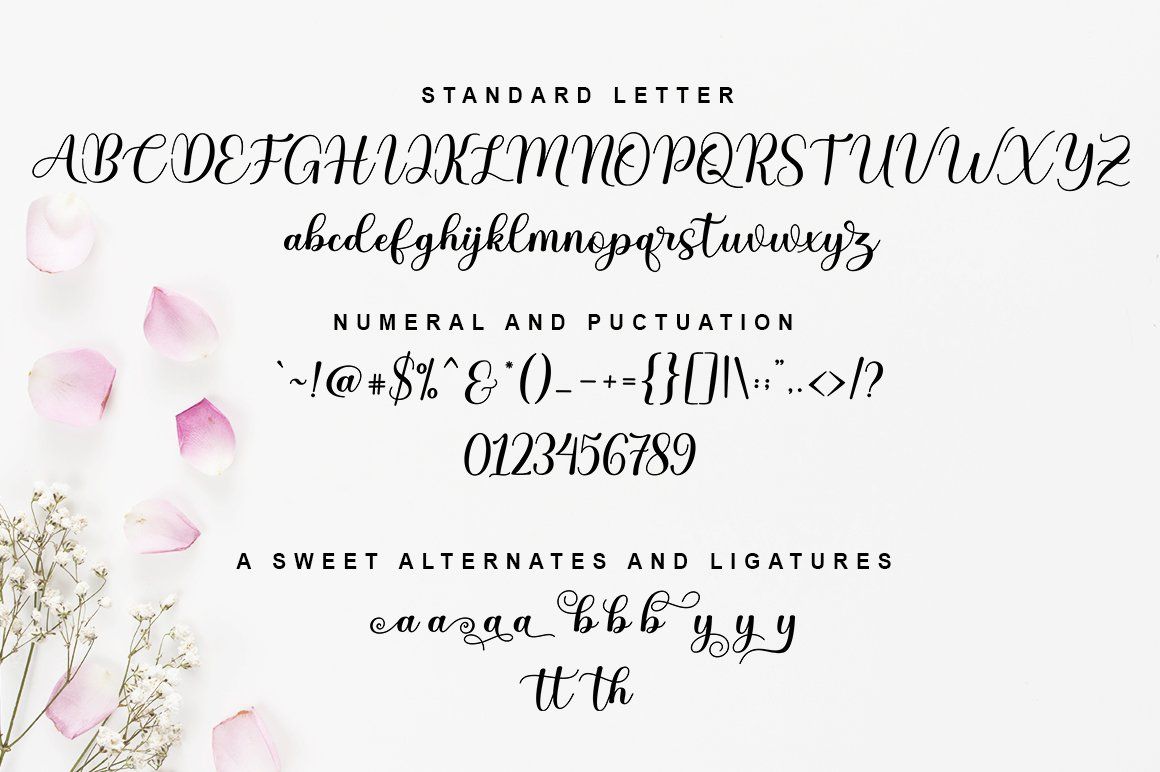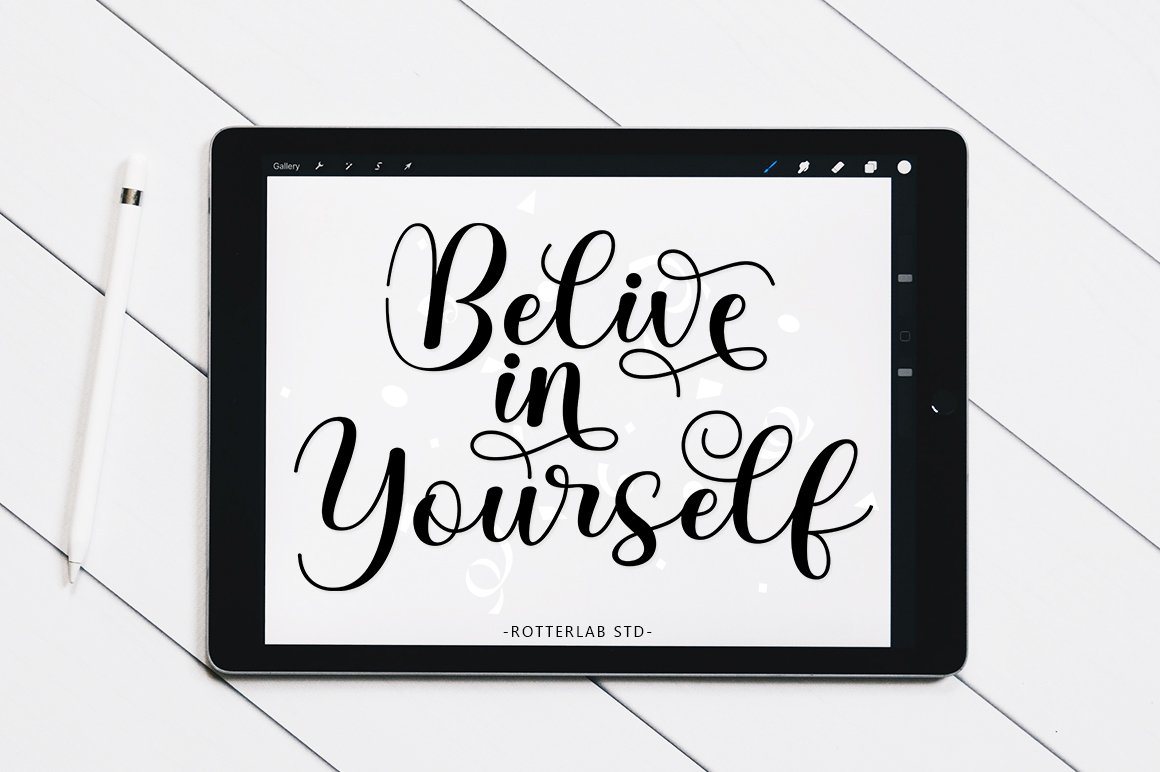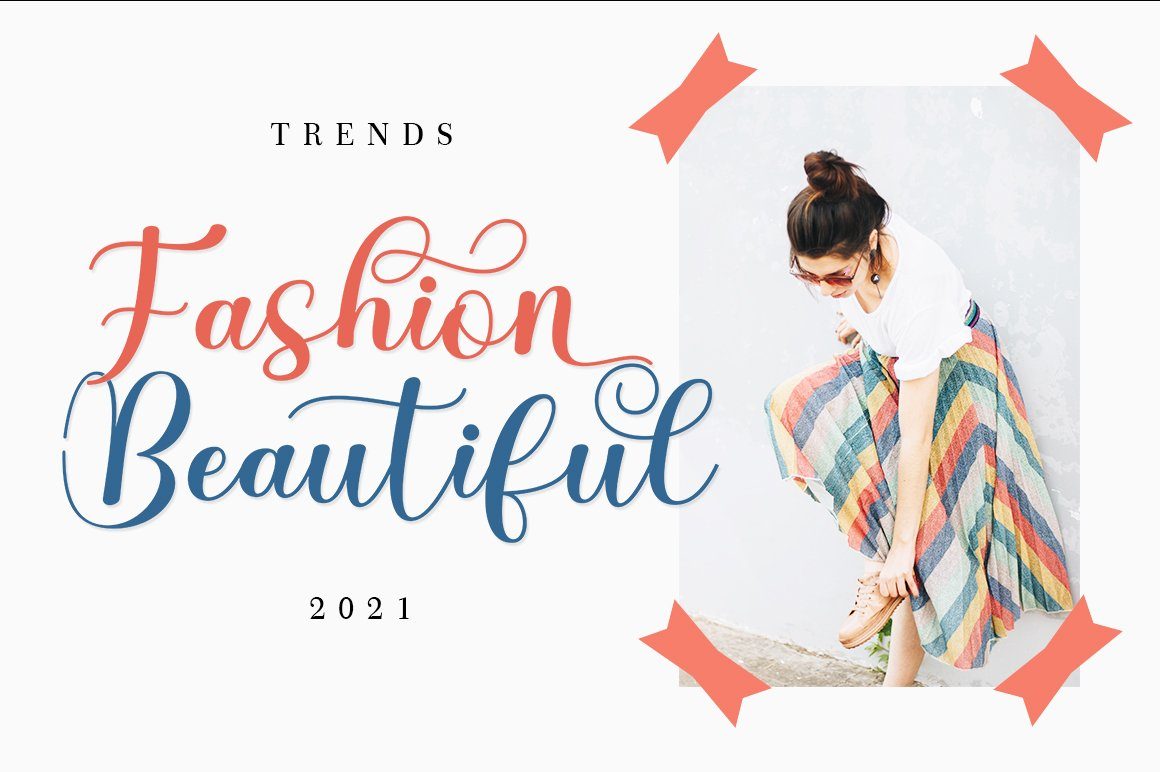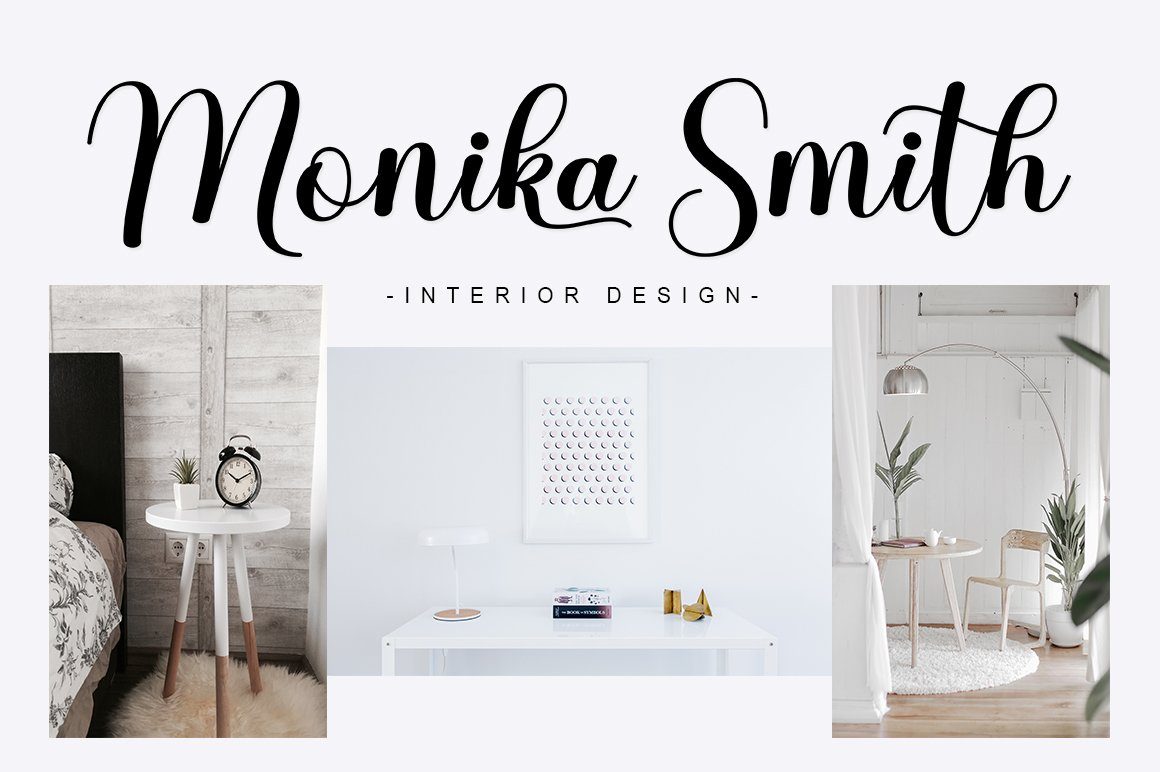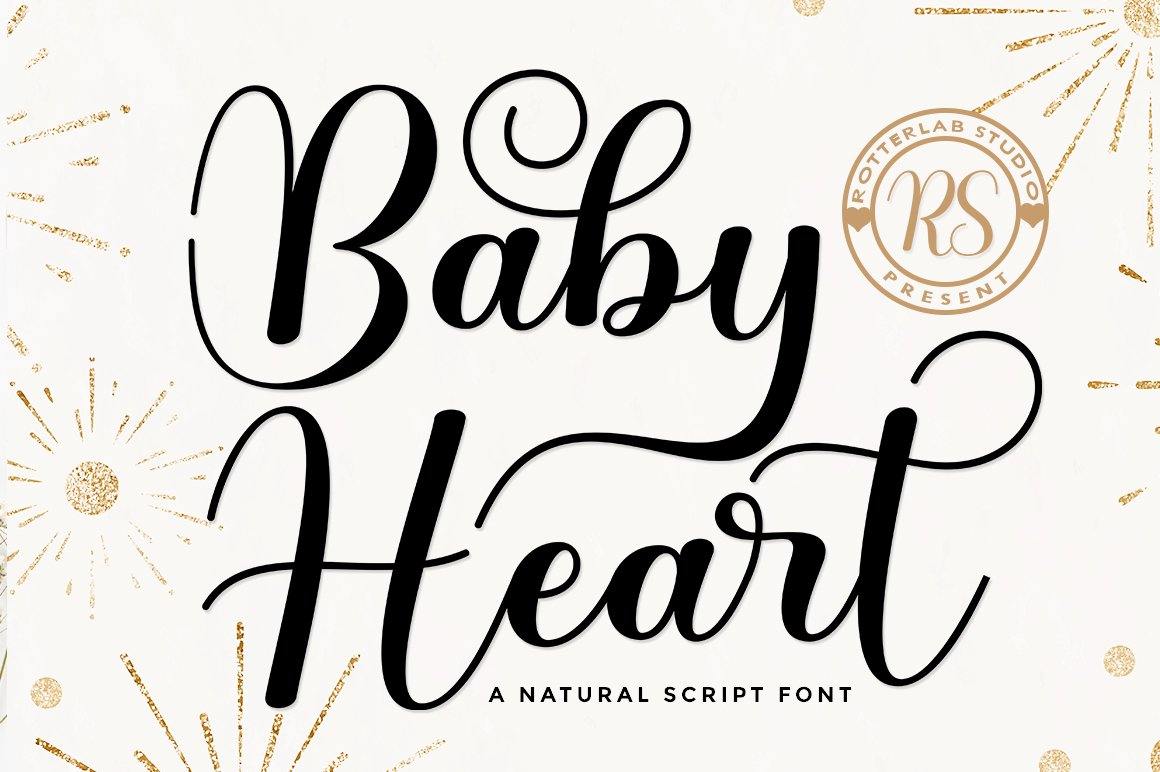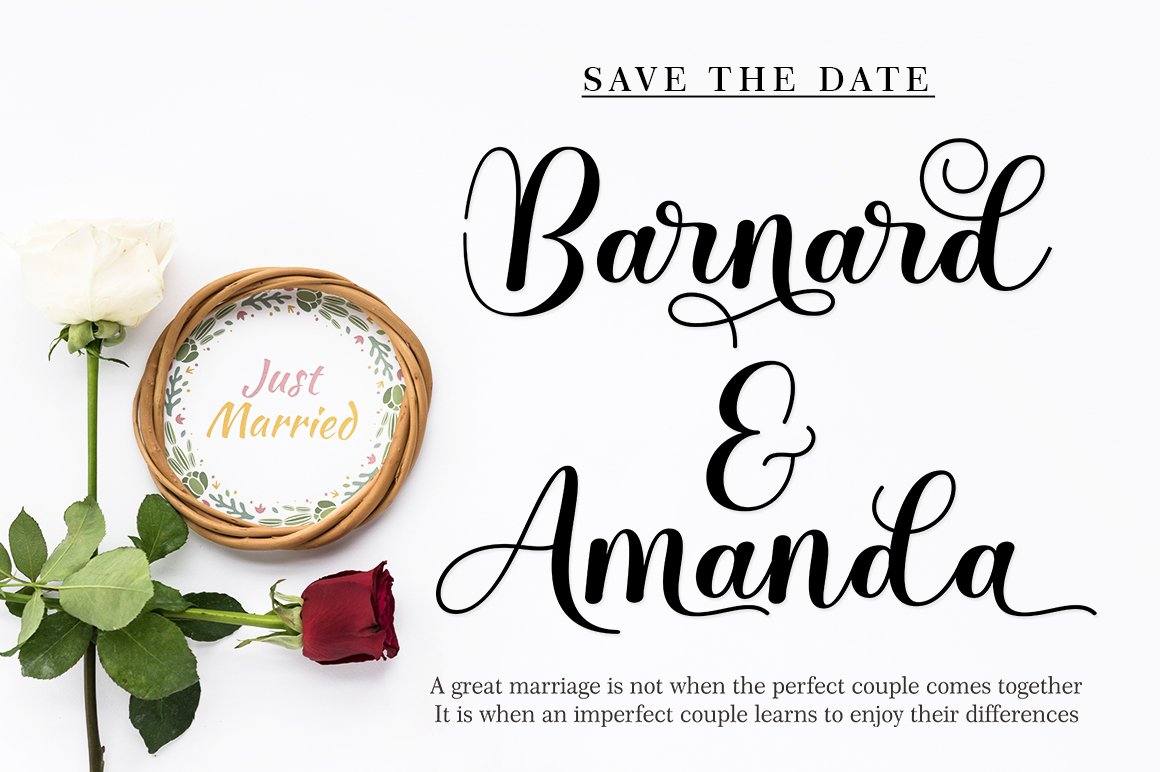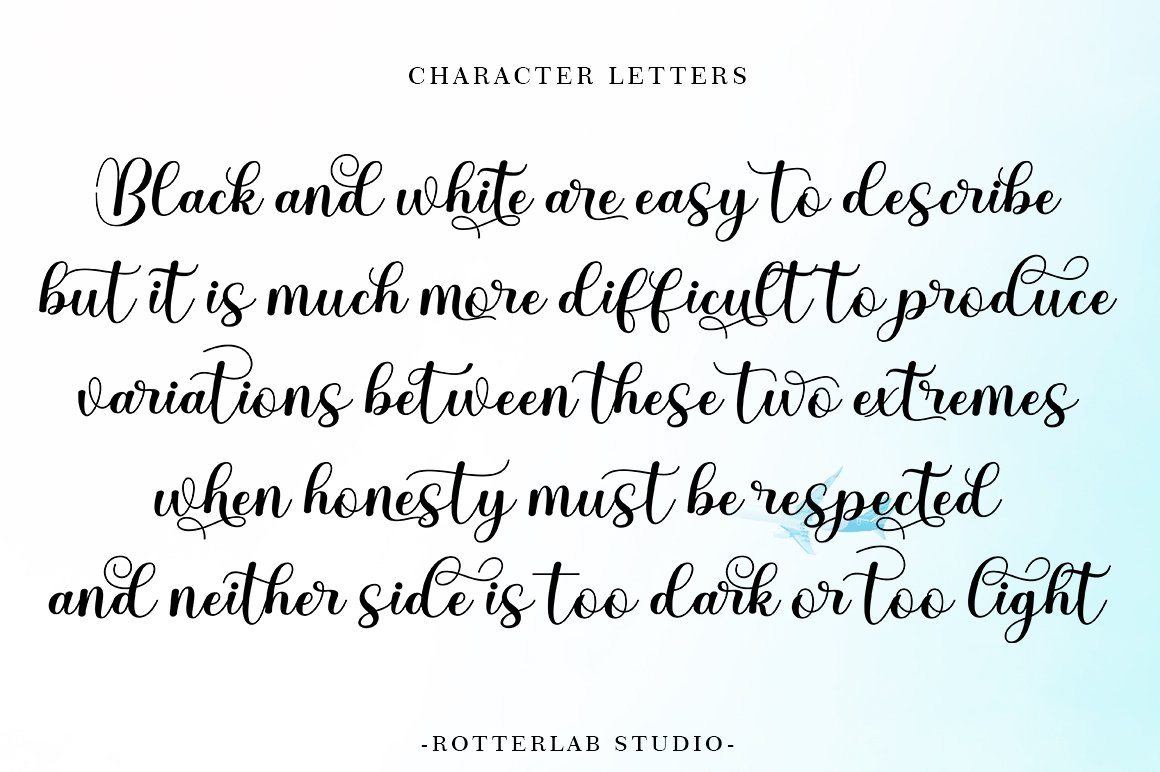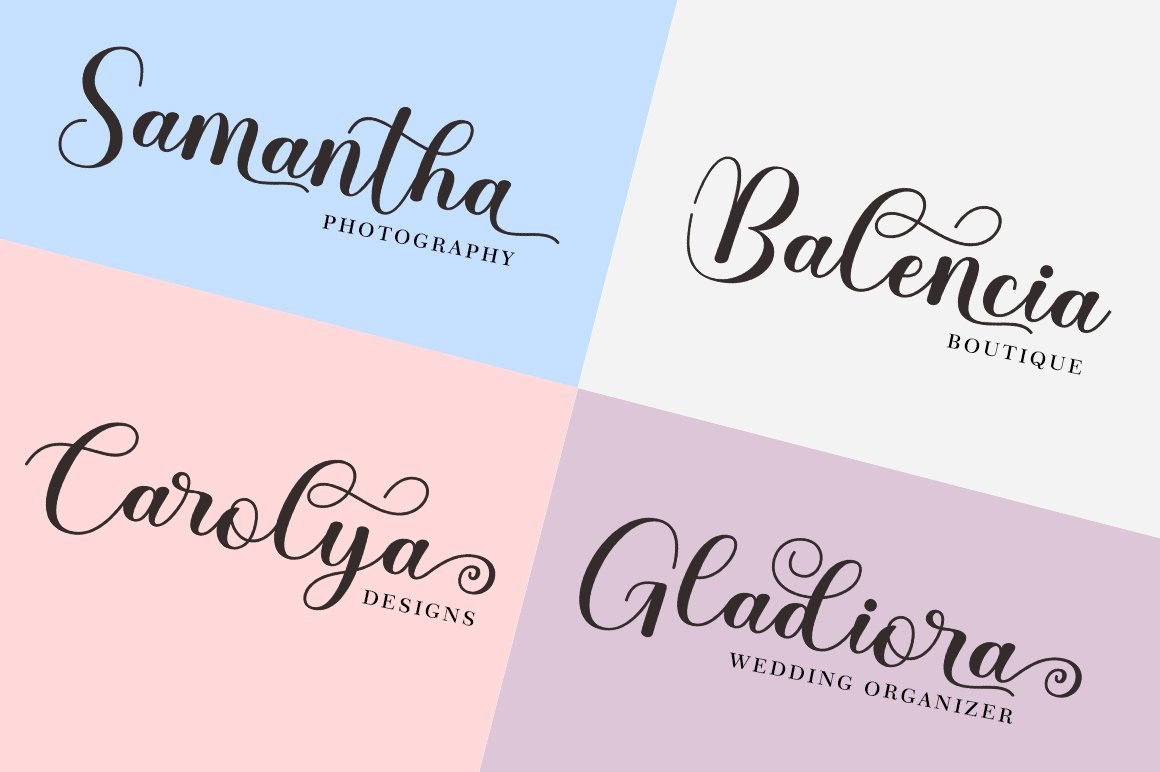
Baby Heart
About Baby Heart
Baby Heart is a beautiful Script font perfect for crafting, branding, invitation, stationery, wedding designs, social media posts, advertisements, product packaging, product designs, label, photography, watermark, special events or anything. Includes ; Baby Heart (OTF) Baby Heart(TTF) Baby Heart comes with full set of uppercase and lowercase letters,multilingual symbols, numerals and punctuation. Thank You